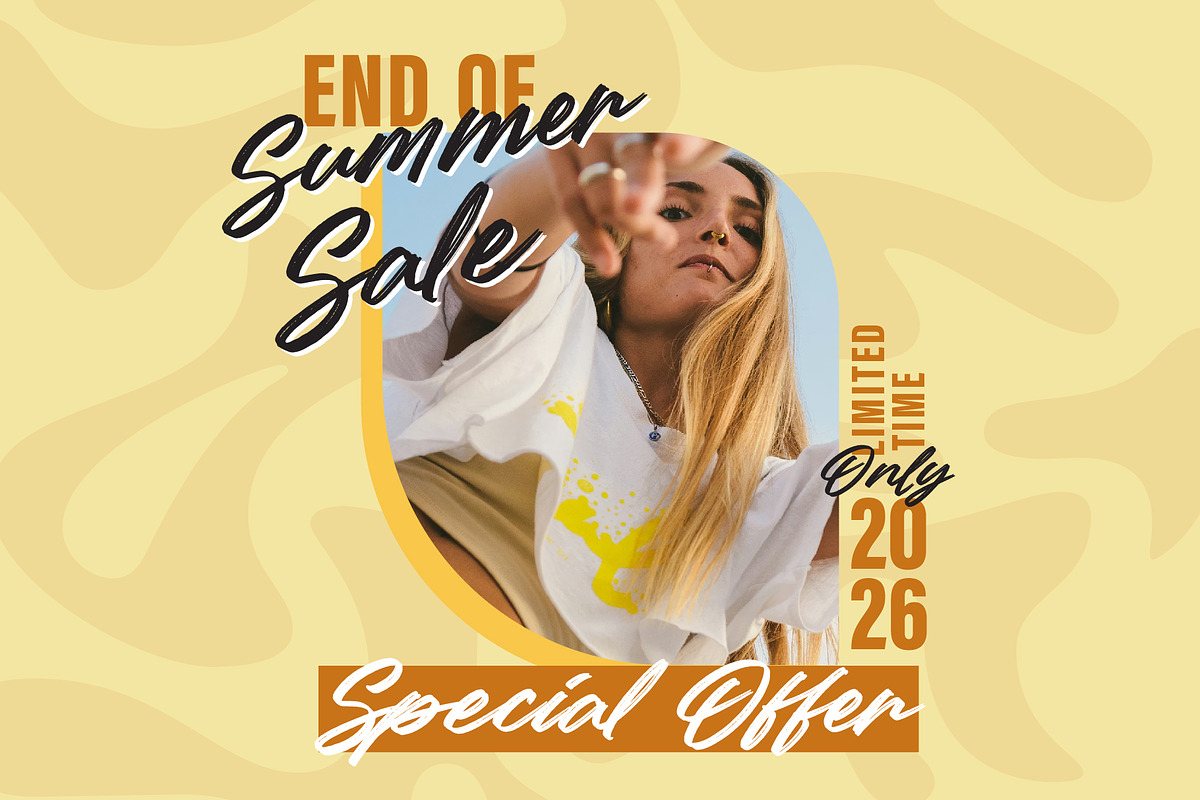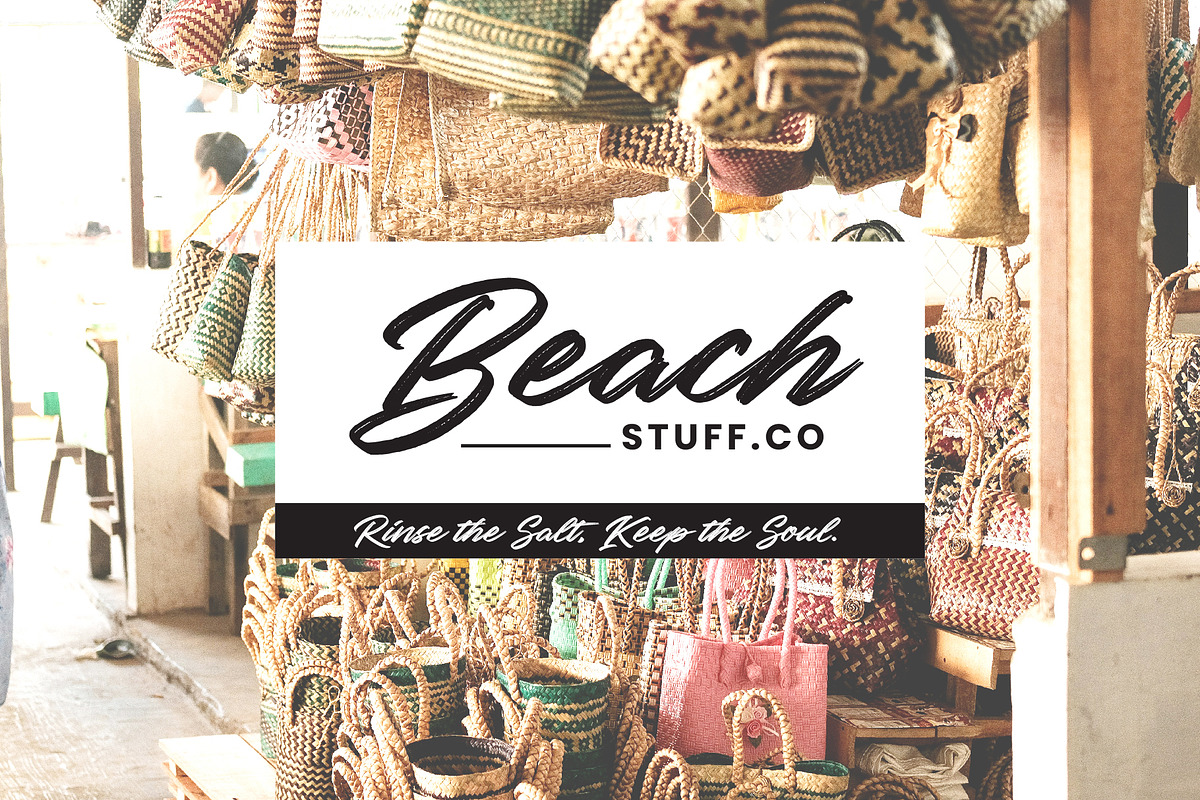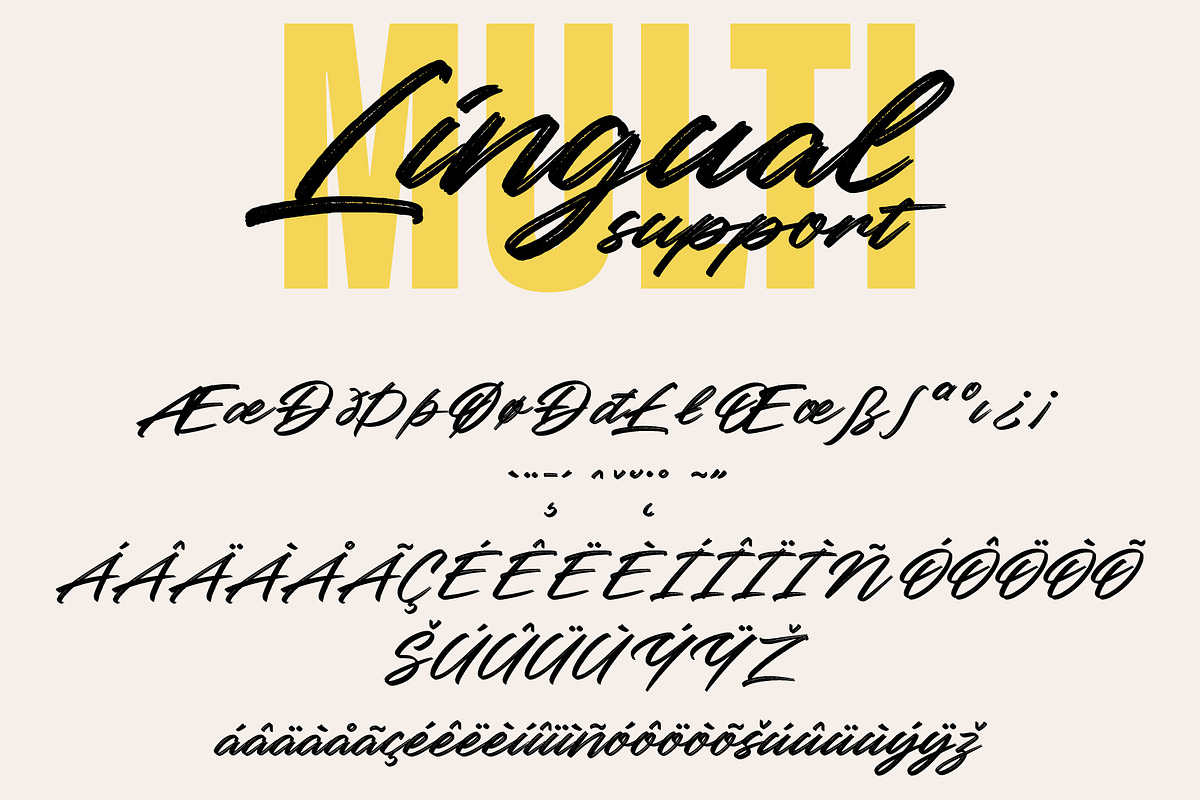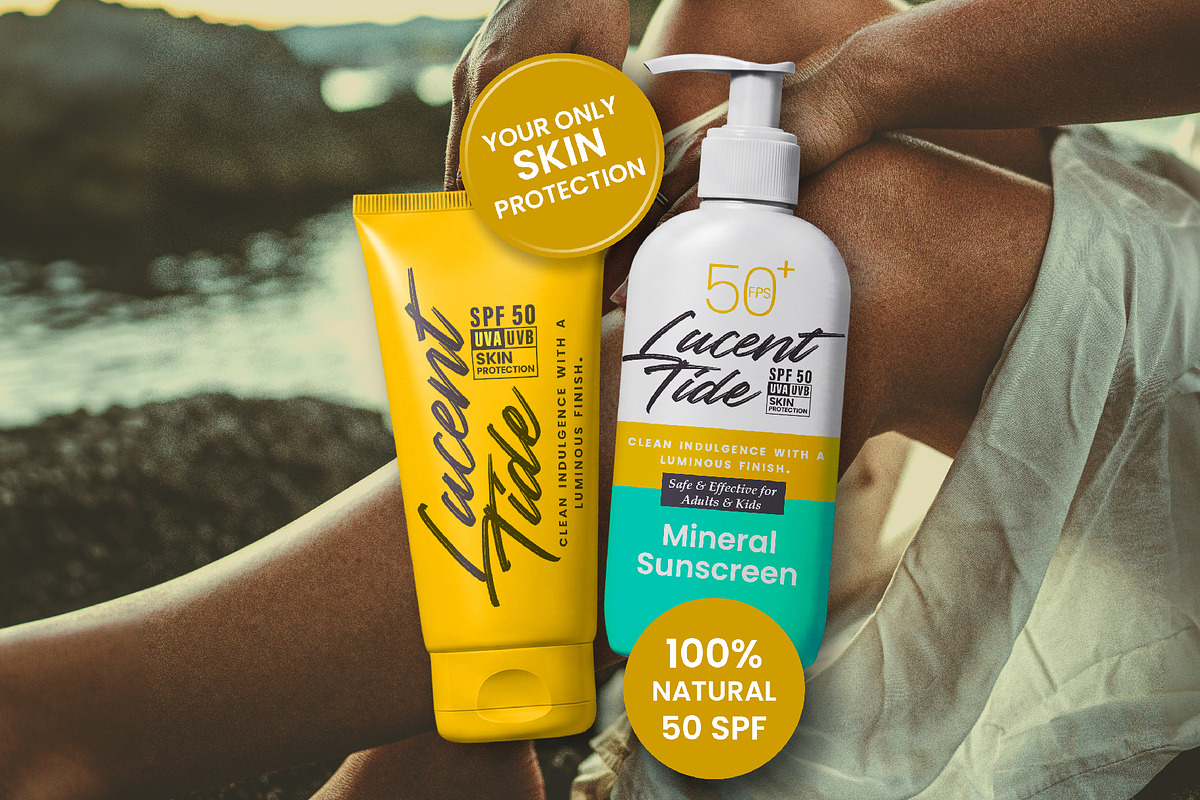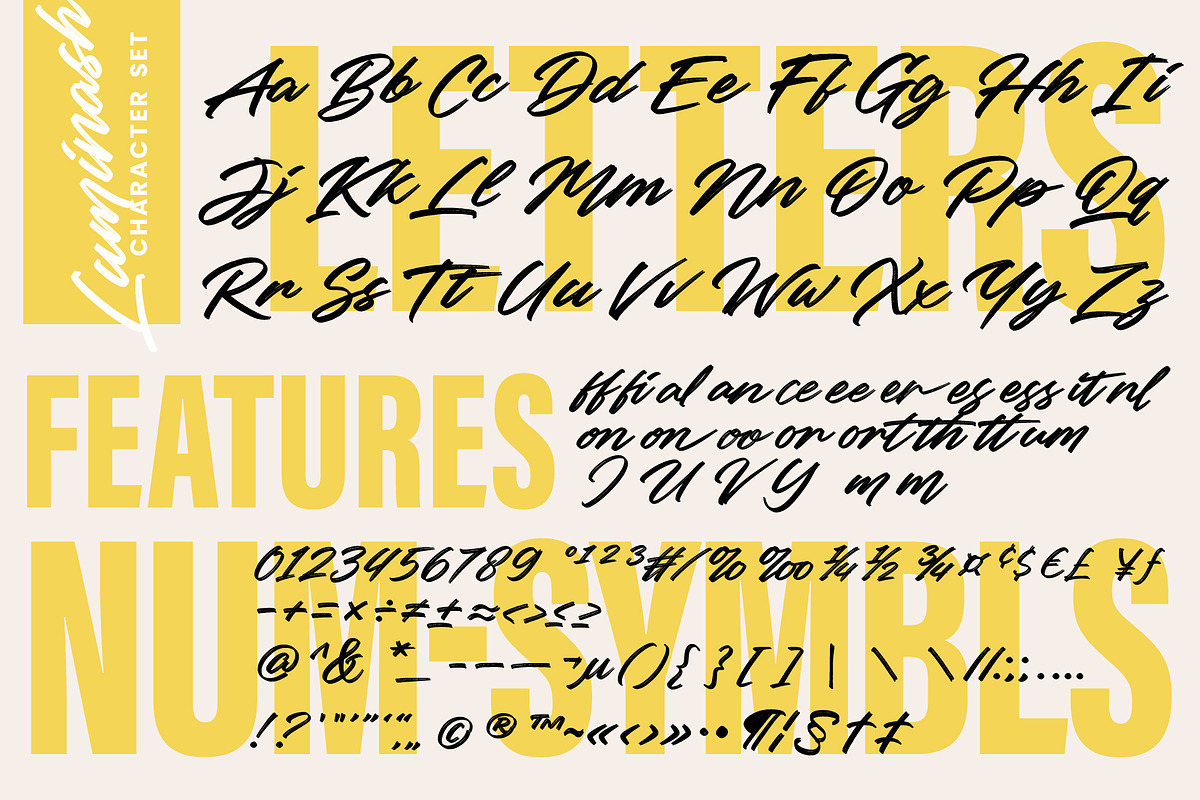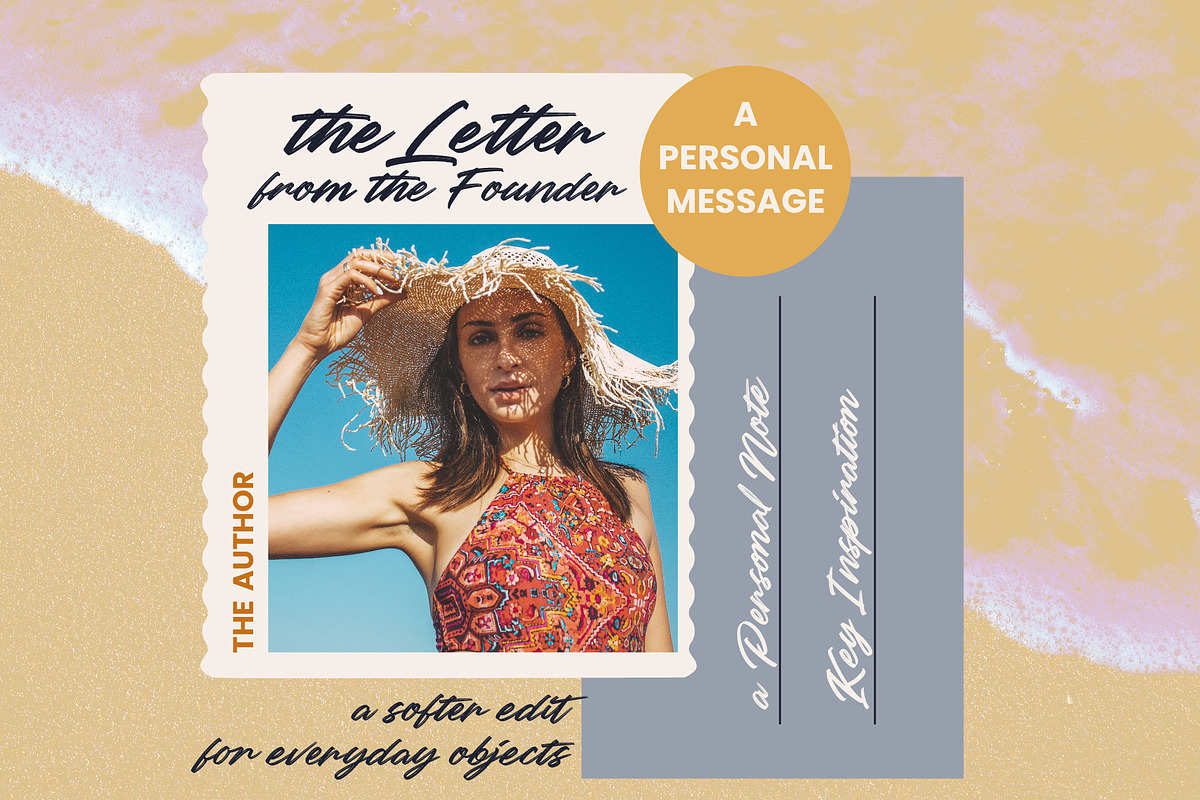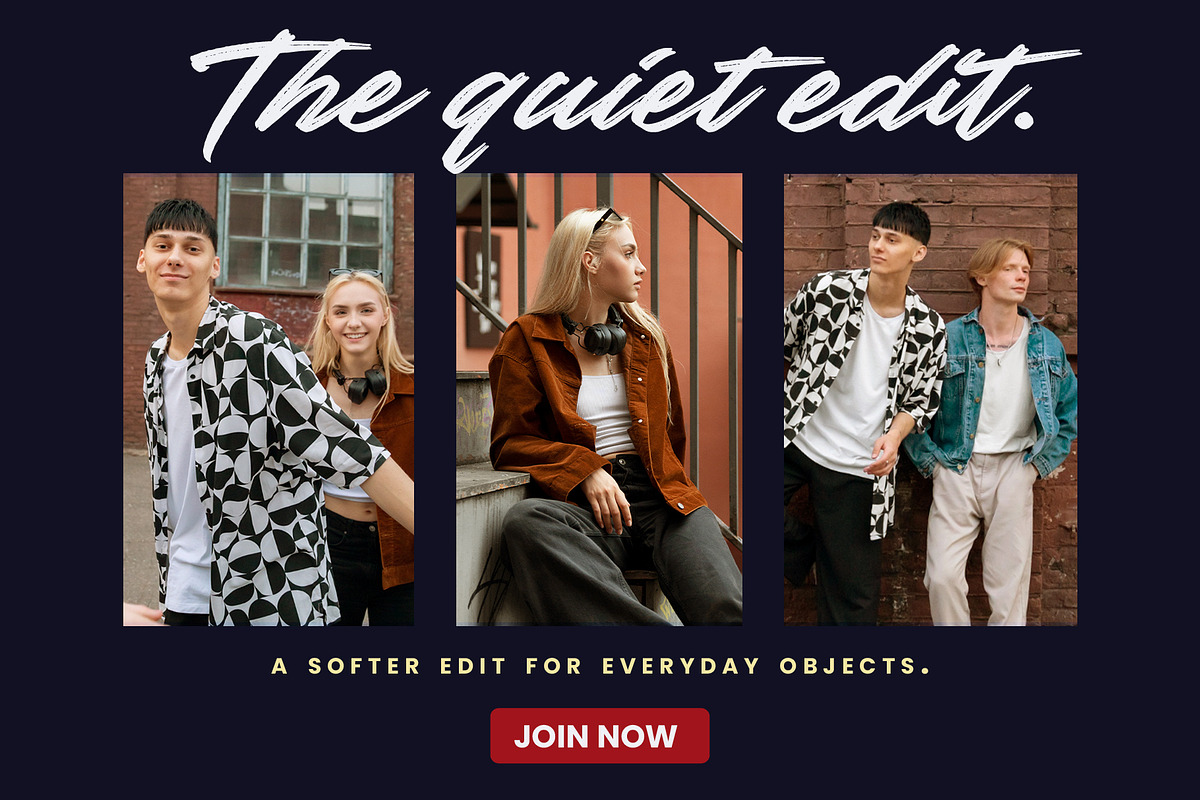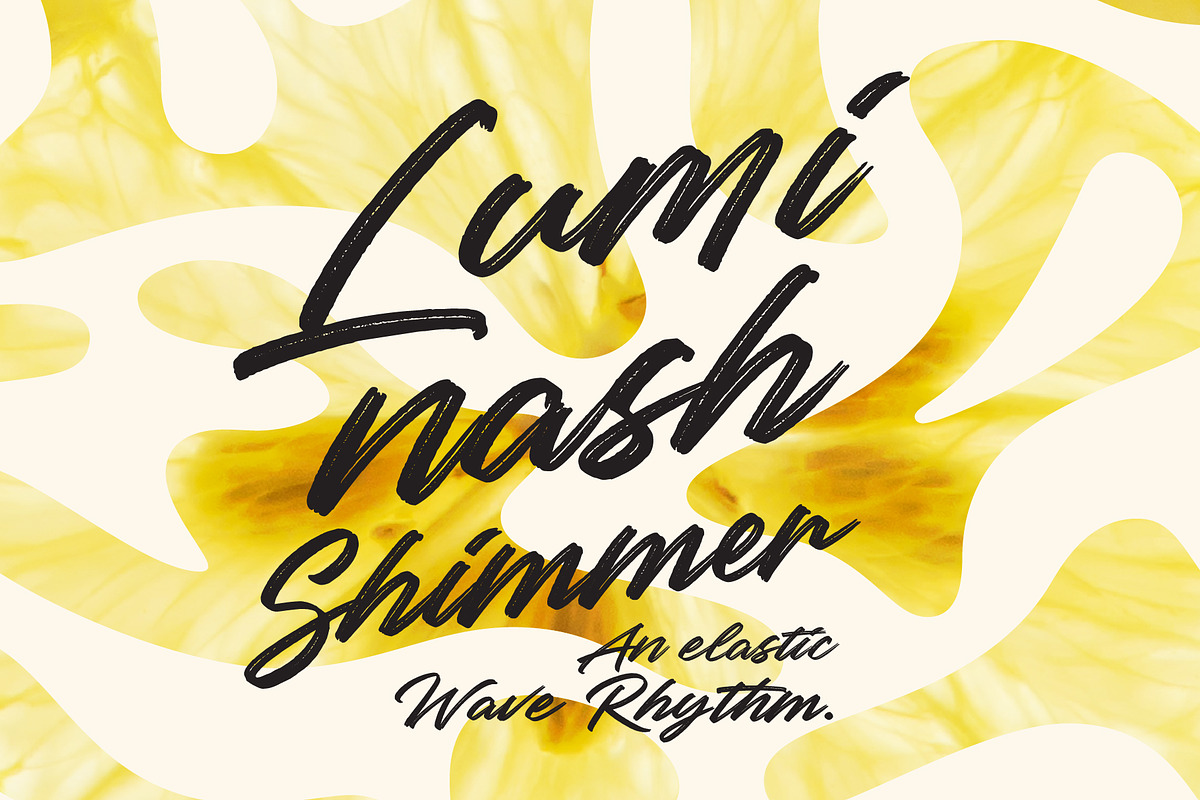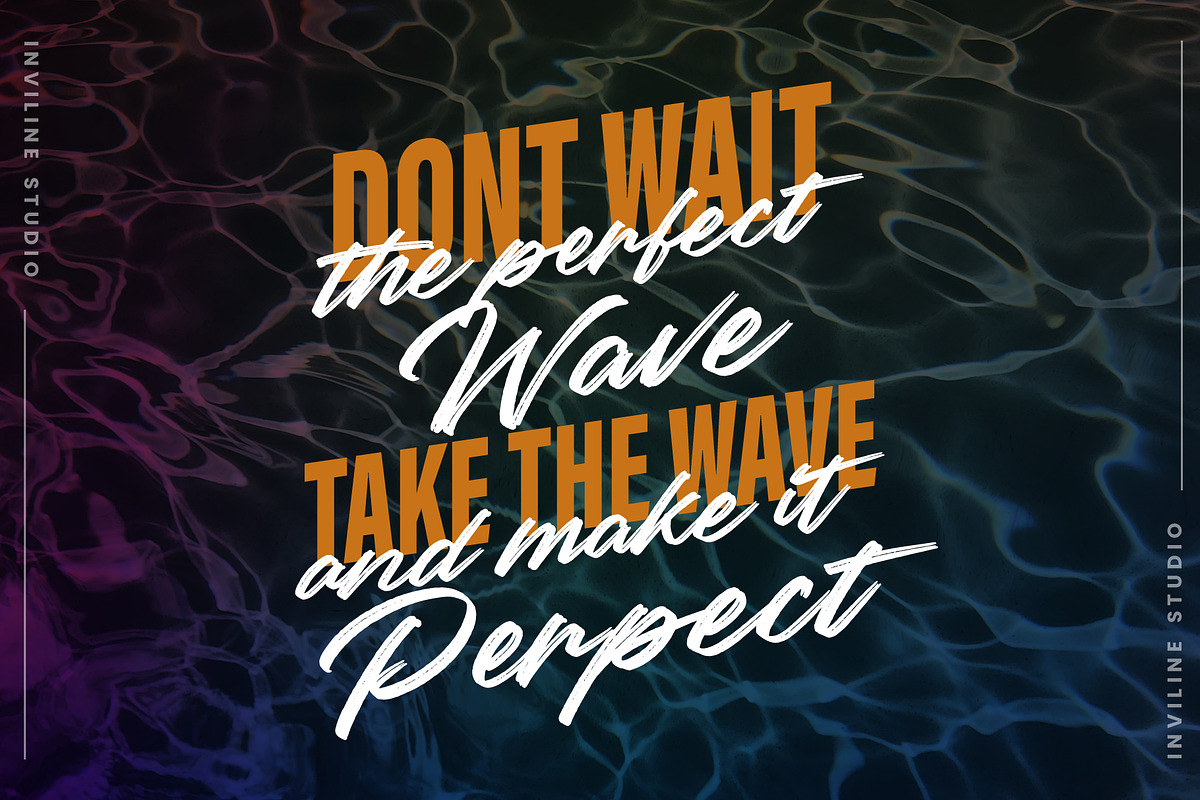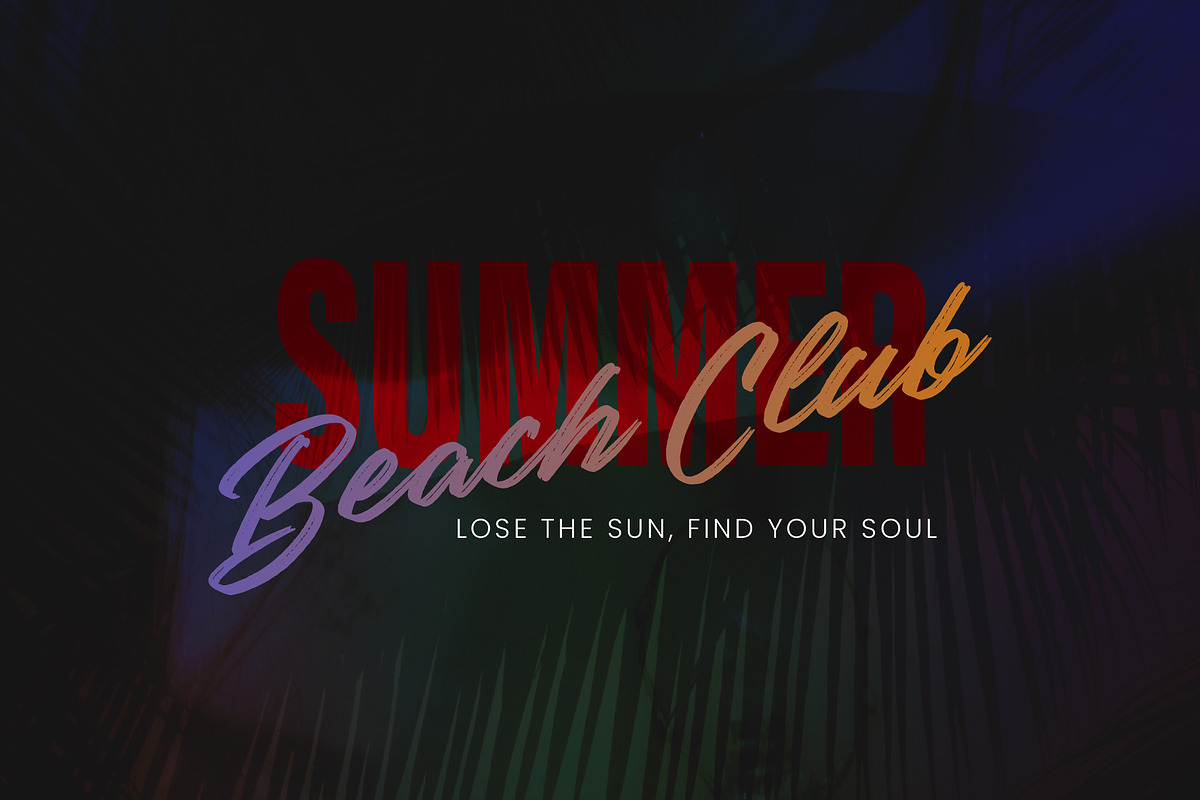
Luminash - Raw Brush Script Font
Luminash is a raw brush lettering script font featuring energetic wave rhythms and tropical vibes. Perfect for designers and brands looking to inject an organic, sun-soaked personality into their packaging and layouts. Craft striking summer sales, resort branding, and modern lifestyle content effortlessly.
Bring the warmth of the sun and the rhythm of the ocean to your design projects with Luminash, a raw brush lettering script font crafted by Inviline Studio. Defined by its elastic wave rhythm and textured strokes, Luminash delivers an authentic, hand-painted aesthetic infused with effortless tropical vibes. Whether you are designing premium resort branding, organic skincare packaging, or high-energy summer promotional materials, this font adapts beautifully to give your text a luminous, high-end finish.
Full Character Set (Uppercase & Lowercase A-Z)
Numbers (0-9) & Standard Punctuation
Special Character Symbols & Currency Support ($\$, €, £, ¥$)
Stylistic Ligatures & Alternates (e.g., ff, fi, al, an, ce, ee, er, es, ess, mm, th)
Multilingual Support characters
Raw Brush Texture: Hand-crafted, organic brush strokes for a natural look.
Elastic Wave Rhythm: Balanced letterforms that flow gracefully like resort lines.
OpenType Features: Includes plenty of ligatures to make your lettering look truly custom.
Multilingual Support: Ready to be used across global design projects.
Ideal For / Use Cases
Summer & Resort Branding: Beach clubs, hotels, and luxury summer apparel lines.
Product Packaging: Organic skincare, mineral sunscreens, and clean beauty labels.
Marketing Material: Social media quotes, event posters, and digital sale banners.
Editorial Layouts: Magazine titles, lookbooks, and casual lifestyle edits.